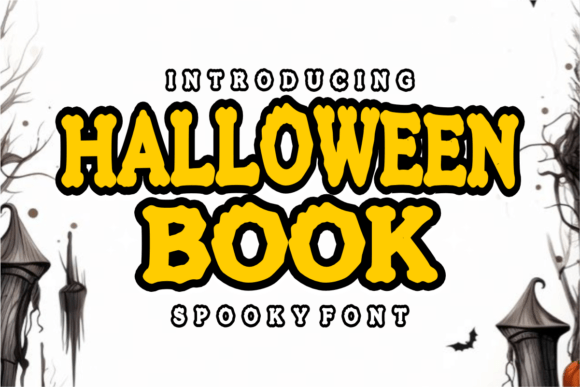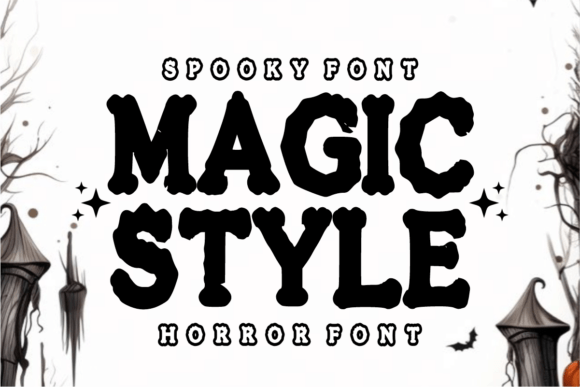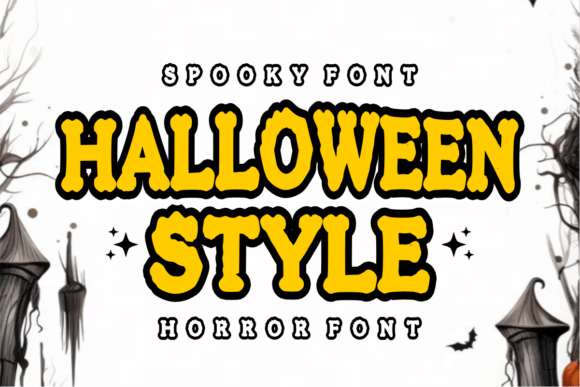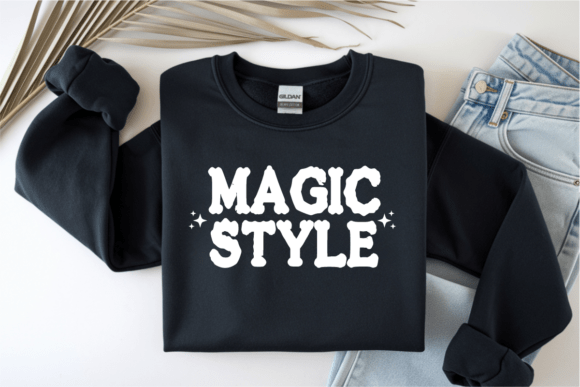
Unleash the Spooky Spirit with Halloween Book Font
As a designer, you know that moment of pure creative bliss when all the elements come together in perfect harmony. It’s that instant when your design sparks to life, and you can’t wait to share it with the world. But what if you could elevate that moment, adding an extra layer of intrigue, mystery, and horror to your masterpiece?
Enter Halloween Book Font, an avant-garde and eerie typeface that’s sure to cast a spell on your audience. This unique font, featuring only uppercase characters, is the perfect companion for any design project, whether you’re crafting a spooky advertisement, a haunting logo, or a thrilling novel cover. With Halloween Book Font, you’ll be able to tap into the spirit of Halloween like never before, making it an indispensable part of your personal typeface collection.
Halloween Book Font Key Features
- Unique Characteristics: The Halloween Book Font features a spooky, handwritten design with intricate details and ornaments, perfect for creating a haunted atmosphere in book titles, posters, and other graphic designs.
Halloween Book Font Review
Overall, I think the Halloween Book Font is a great choice for designers looking to add a spooky touch to their projects. Here are some things that really work well:
- ✨ The font is highly customizable, with a range of options for color, size, and spacing.
- ✨ The font is highly legible, even in small sizes, making it perfect for use in titles, headings, and body text.
- ✨ The font has a unique, hand-drawn feel that adds a lot of character to any design.
- ⚠️ The font may be a bit too “playful” for some designs, particularly those that require a more serious tone.
- ⚠️ The font may not be suitable for use in large blocks of text, as it can start to feel a bit overwhelming.
- ⚠️ Some users may find the font a bit too ” Halloween-y”, which could limit its use in non-seasonal designs.
Overall, I think the Halloween Book Font is a great addition to any designer’s toolkit, but it’s worth being mindful of its limitations and using it judiciously.
To get the most out of the Halloween Book Font, try combining it with other spooky elements like ghosts, bats, or jack-o-lanterns. You can also experiment with different font sizes and colors to create a unique and eerie atmosphere.
The Halloween Book Font is perfect for creating spooky invitations, posters, and social media graphics. It’s also great for adding a touch of Halloween magic to your blog posts, articles, and ebooks.